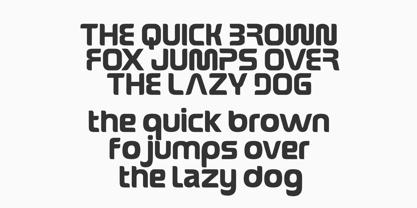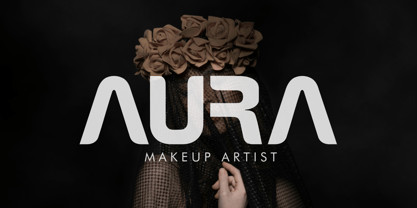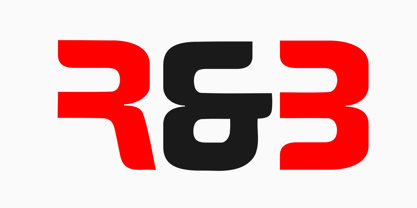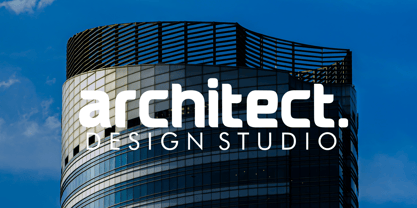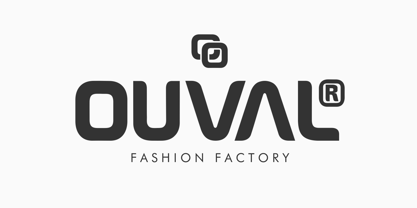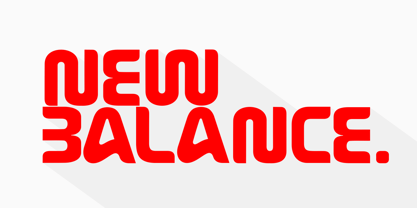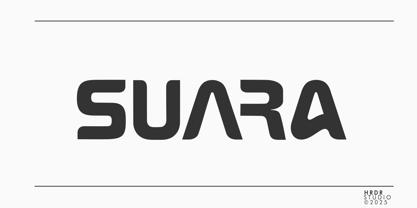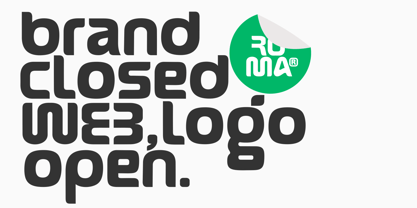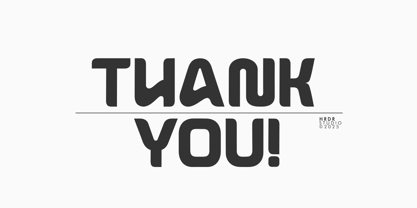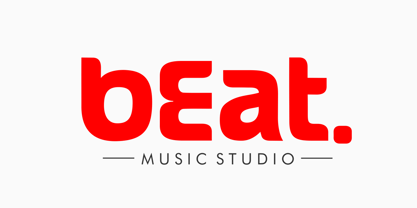
Suara
by HRDR
The Suara Font Family was designed by Dede Mulyadi and published by HRDR. Suara contains 1 styles.
Suara is a robust sans serif font designed with a bold and distinctive personality. Ideal for logos and branding, it adds a strong visual impact to headlines and titles while maintaining excellent legibility in sentence case. Its versatile nature makes it suitable for a broad range of applications, including crafting, branding, invitations, stationery, wedding designs, social media posts, advertisements, product packaging, product designs, labels, posters, photography, and special events.
Suara is perfect for designers seeking to add a bold, modern touch to their projects. Its adaptability ensures it can be used across various design platforms, delivering consistent and striking results every time.